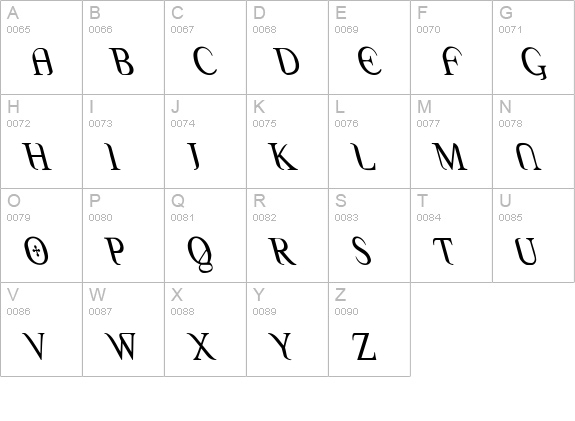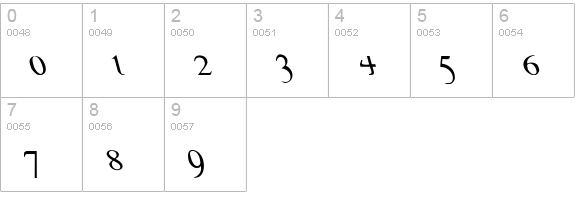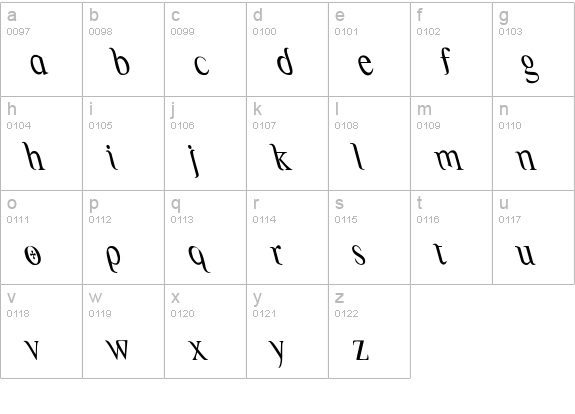
ThessalyAntitalics Font Details
Introducing ThessalyAntitalics, a stunning and versatile font that exudes elegance and sophistication. Crafted with precision and attention to detail, this font is perfect for adding a touch of uniqueness to any design project. ThessalyAntitalics boasts a beautiful combination of flowing curves and sharp angles, creating a harmonious balance that captures attention and leaves a lasting impression. Its sleek, slanted letterforms lend a sense of dynamism and movement, making it ideal for conveying a sense of energy and excitement. Whether you're designing a logo, creating branding materials, or crafting eye-catching headlines, ThessalyAntitalics is the perfect choice to make your text pop. Its distinctive personality and effortless legibility ensure that your message will be communicated with clarity and style. But what makes ThessalyAntitalics even more appealing is that it is free! Yes, you read that right. This fabulous font is freely available to download at FontsMarket.com. Now you can enhance your designs and elevate your creativity without breaking the bank. So why wait? Unleash your creativity and download ThessalyAntitalics today. With its stunning aesthetics and effortless versatility, this font is sure to become your go-to choice for all your design needs. Transform your projects into works of art and captivate your audience with ThessalyAntitalics.